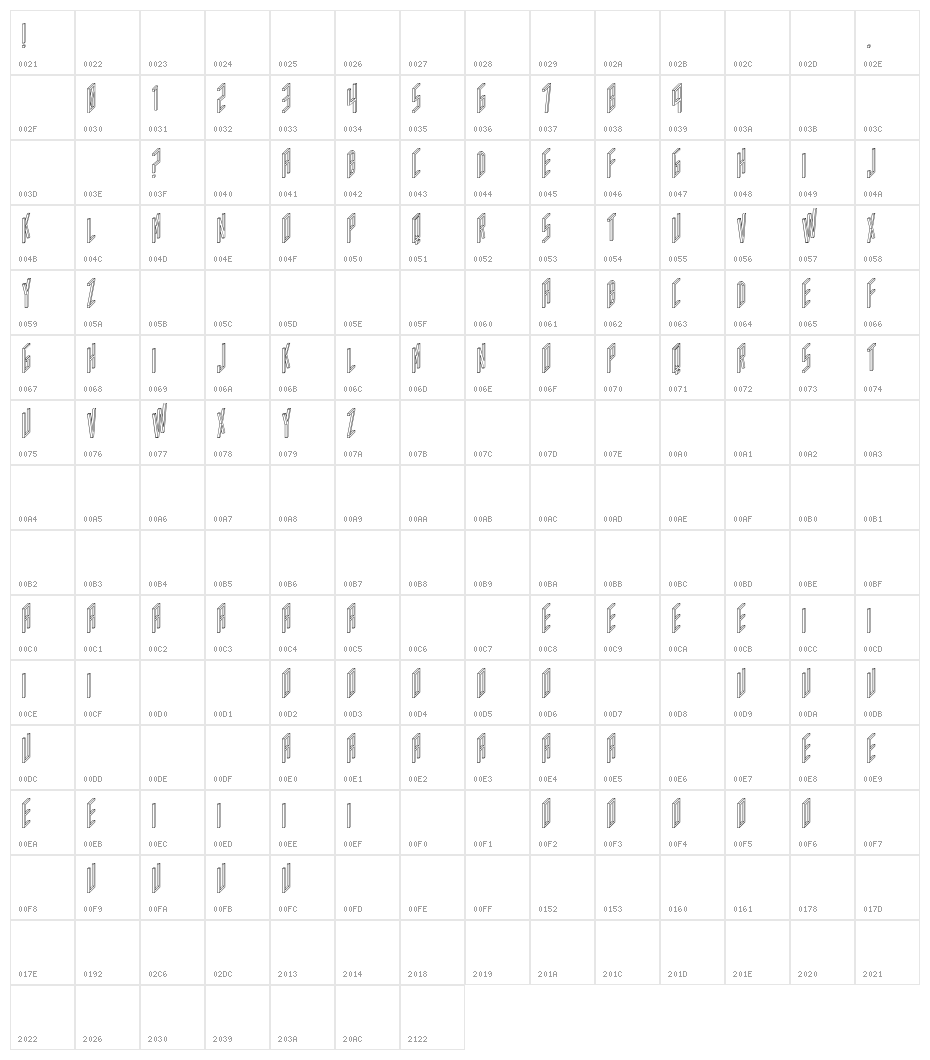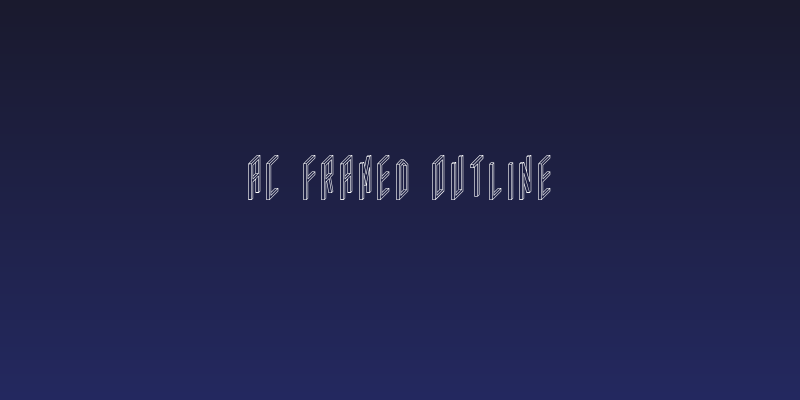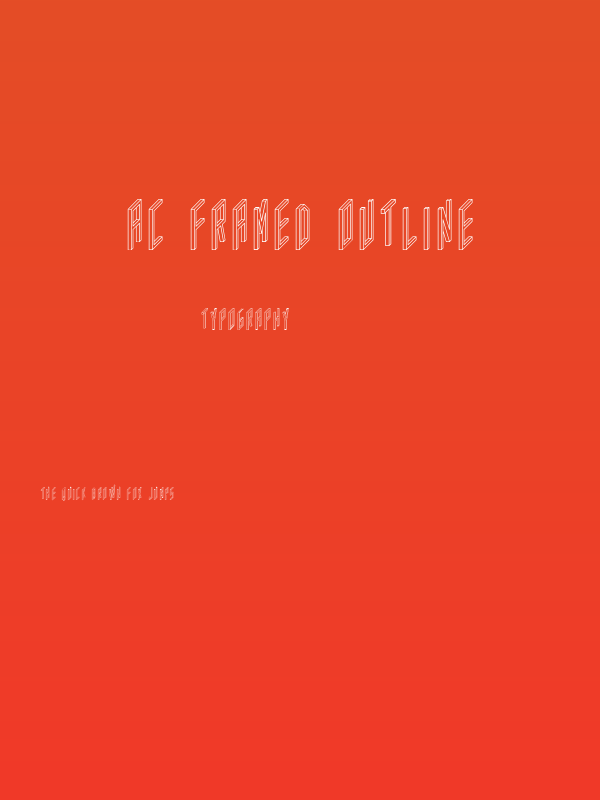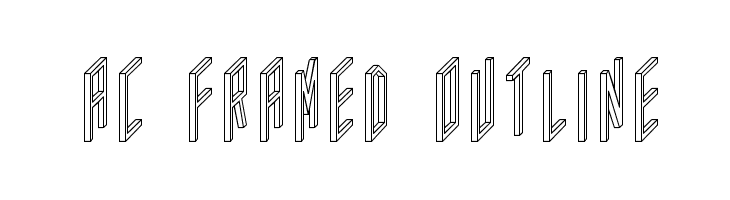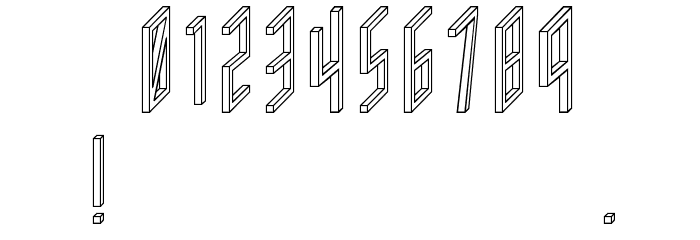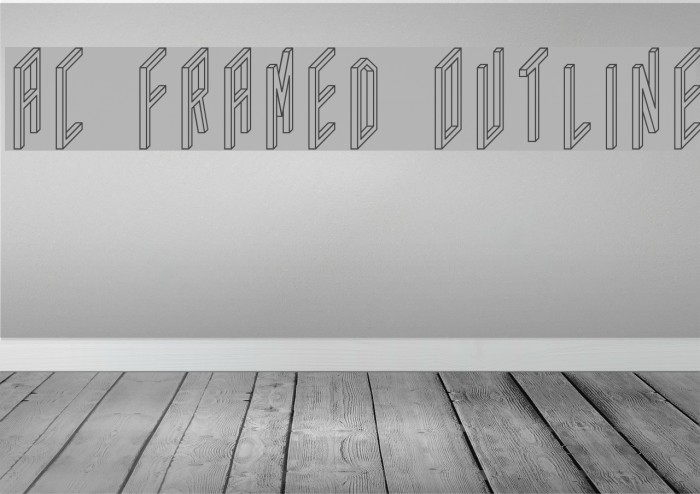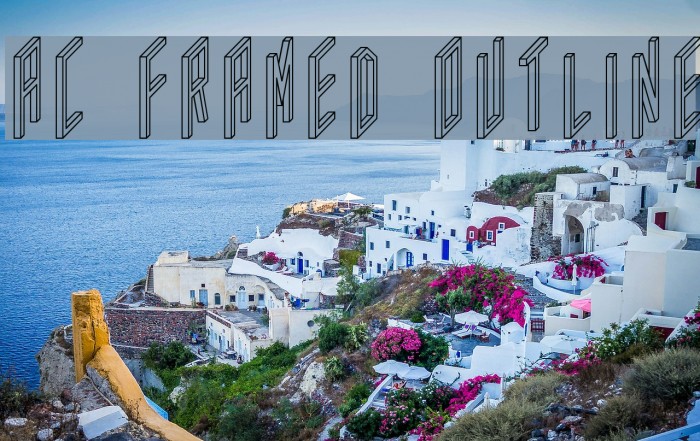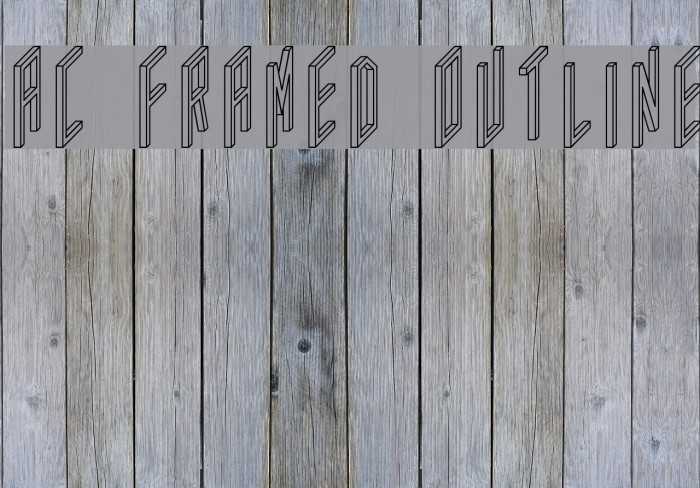
AC Framed Outline Font
AC Framed Outline Description
This font features a unique 3D outline style, giving each character a framed appearance. The letters are constructed with clean, angular lines that create a sense of depth and dimension. The uppercase and lowercase letters maintain a consistent geometric structure, while the numbers and special characters follow the same design principles. The font's distinct outline makes it stand out, providing a modern and edgy look. Its architectural style is reminiscent of blueprints or technical drawings, making it suitable for projects that require a futuristic or industrial feel.